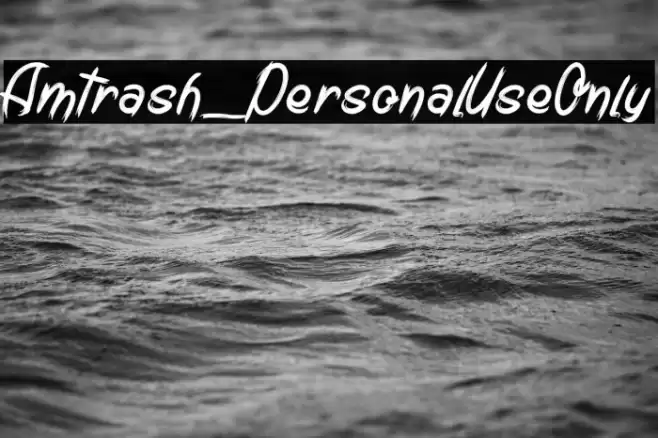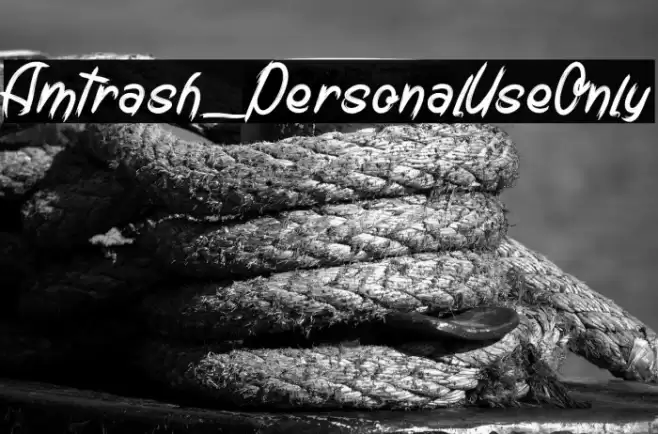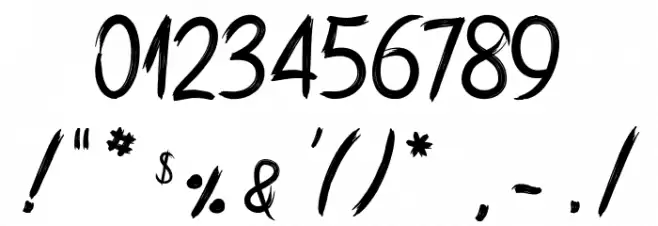
Amtrash_PersonalUseOnly Font
Amtrash_PersonalUseOnly Description
This font features a bold and energetic brush script style, characterized by its dynamic and fluid strokes. The letters are crafted with a sense of movement, giving them a lively and expressive appearance. The uppercase and lowercase letters maintain a consistent style, with exaggerated curves and sharp angles that add to the font's dramatic flair. The numerals and special characters are designed to match the overall aesthetic, ensuring a cohesive look across all text. This font is perfect for projects that require a touch of creativity and boldness.
A bold, energetic brush script font with dynamic strokes from Regular fonts.
- Proposed Projects: Ideal for branding, posters, artistic projects, and any design requiring a bold, expressive touch.